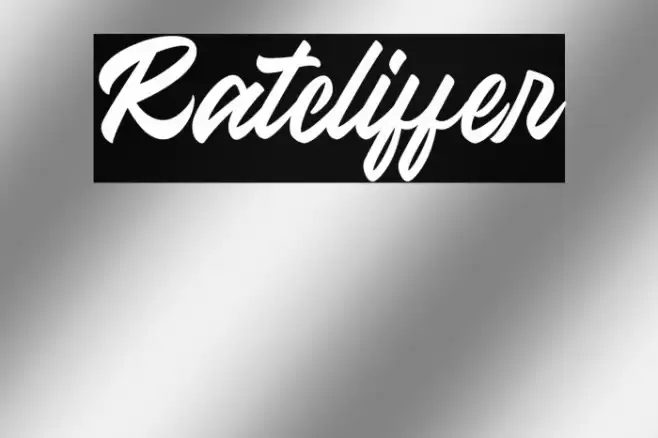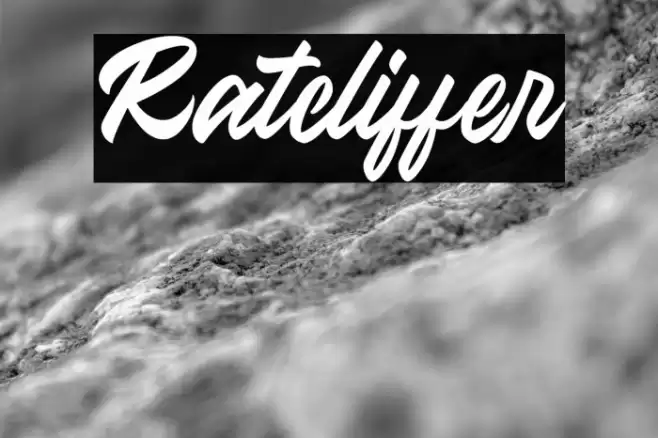
Ratcliffer Font
Ratcliffer Description
This font features a bold, cursive style with a strong emphasis on fluidity and elegance. The characters are connected, giving it a handwritten appearance that is both stylish and dynamic. The uppercase letters are slightly larger and more pronounced, while the lowercase letters maintain a consistent flow. The numbers and special characters retain the same cursive style, ensuring uniformity across all elements. The font's bold strokes and smooth curves make it highly legible, yet it retains a sense of sophistication and flair.
A bold, cursive font with a handwritten, elegant style from Regular fonts.
- Proposed Projects: Ideal for wedding invitations, greeting cards, branding projects, and any design requiring a personal touch.
- Use Case: Logos, Invitations, Decorative text